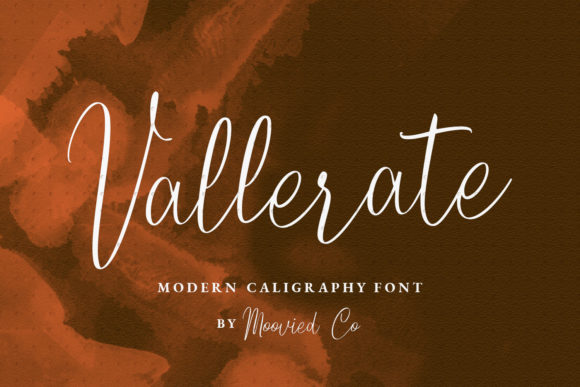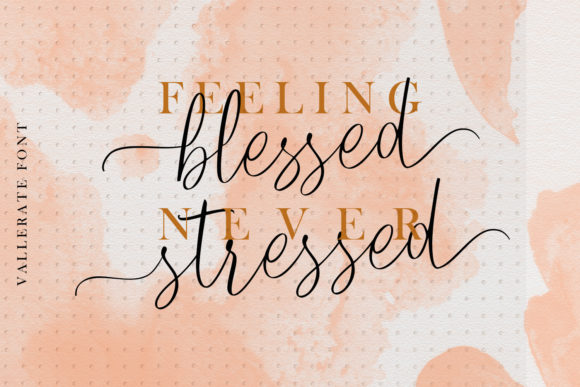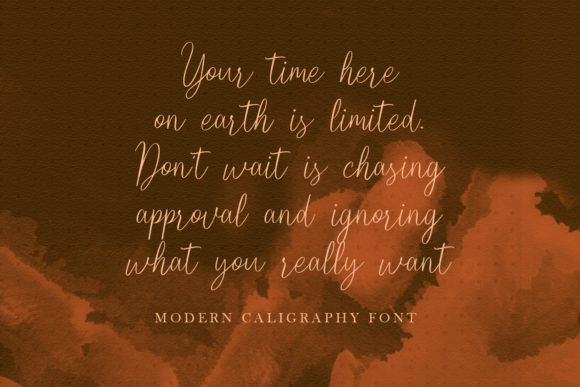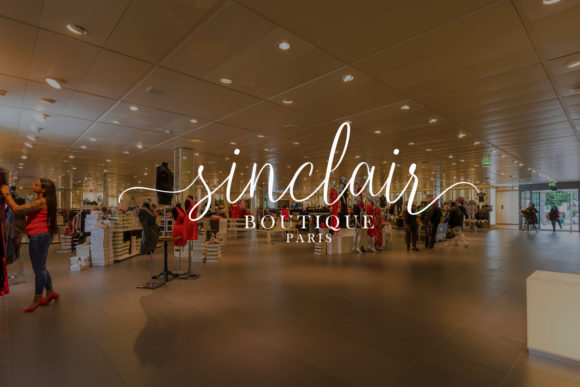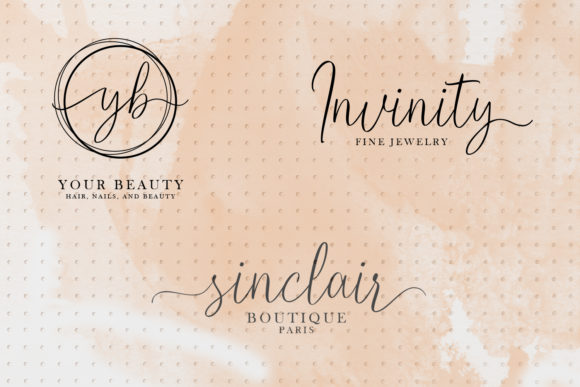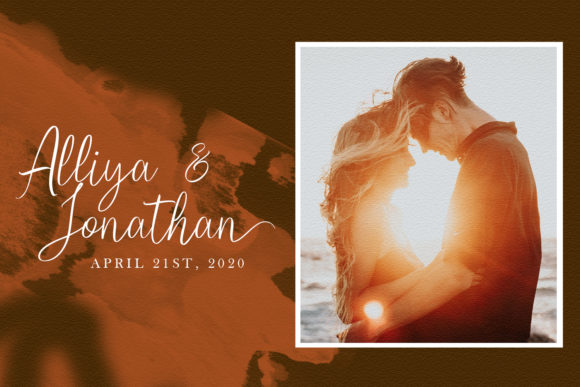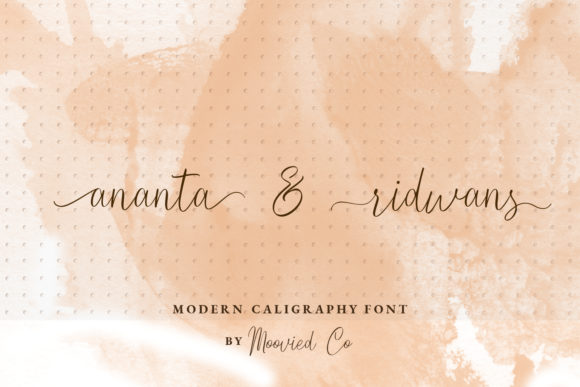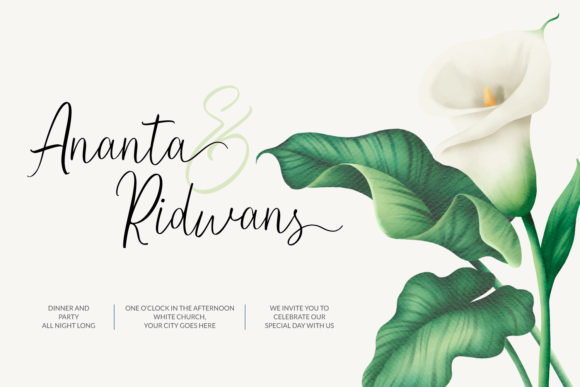
Vallerate Font
About Vallerate Font
Vallerate is a cute and modern handwritten font with an incredibly friendly feel. It features gorgeous swashes and ligatures that make this script incredibly versatile. Whether you’re looking for fonts for Instagram or calligraphy scripts for DIY projects, Vallerate will turn any creative idea into a true piece of art!